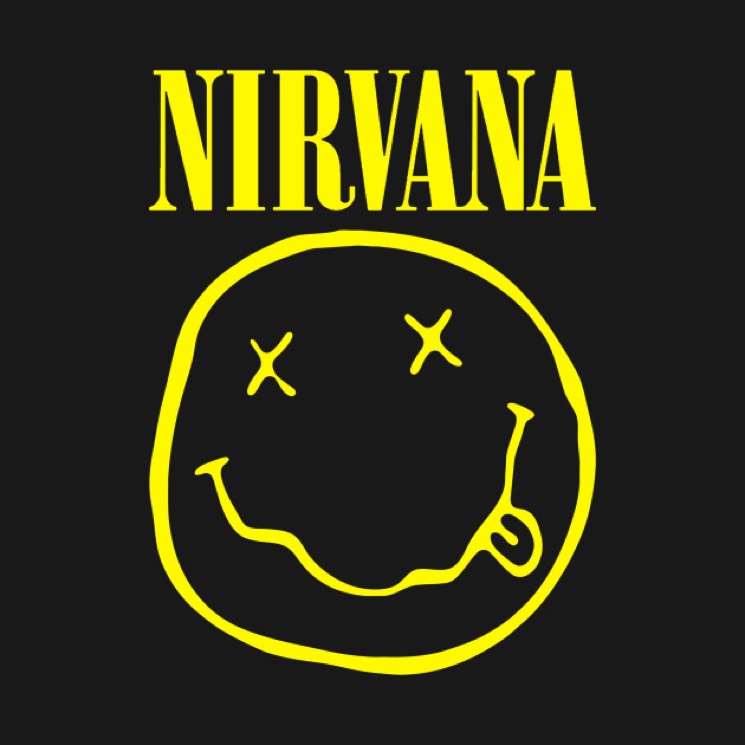
What Font Did Nirvana Use
What Font Did Nirvana Use. Nirvana have owned the trademark for the logo since 1992. However, bodoni took said ideas to the next level by creating even more contrast between the thick and thin strokes, making letters more vertical, and.
This Style Was Picked At Random When Lisa Orth Paid Grant Alden To Use Whatever Font Was Programmed Into His Typesetter At That Very Moment.
Nirvana's success popularized alternative rock, and they were often referenced as the figurehead band of. Browse by alphabetical listing, by style, by author or by popularity. Bodoni was inspired under the ideas of john baskerville when he designed his namesake typeface.
The Font Used For The Logotype Is Probably Poster Bodoni Compressed.
As for the nirvana smiley face logo — that one first appeared on a poster for the private nevermind album release party held on september 13th, 1991. Correct me if i'm wrong, but they only used it for this record iirc. However, the band's lawyers have decided to take action on the basis that marc jacobs apparently did not obtain permission to use the imagery.
Nirvana font contains 256 defined characters and 255 unique. The nirvana logo features a smiley face and its logotype above it. One of the most popular fonts in the world is the nirvana one.
Ok So Im Really Keen On The Font Kurt/Nirvana Used For Nevermind And Allot Of Their Other Albums.
The font style for the band’s name is onyx. This font was used for the tilte of nirvana's mtv unplugged show. Nirvana is an american rock band that was formed in washington in 1987.
Here We Have A Modern Serif Typeface Designed By An Italian Man Named Giambattista Bodoni In 1798.
With its bold yellow and black colour scheme, scribbly line work and accompanying onyx font, the nirvana smiley face has become one of the most recognisable band logos in the world. Archive of freely downloadable fonts. You can refresh with a new set.